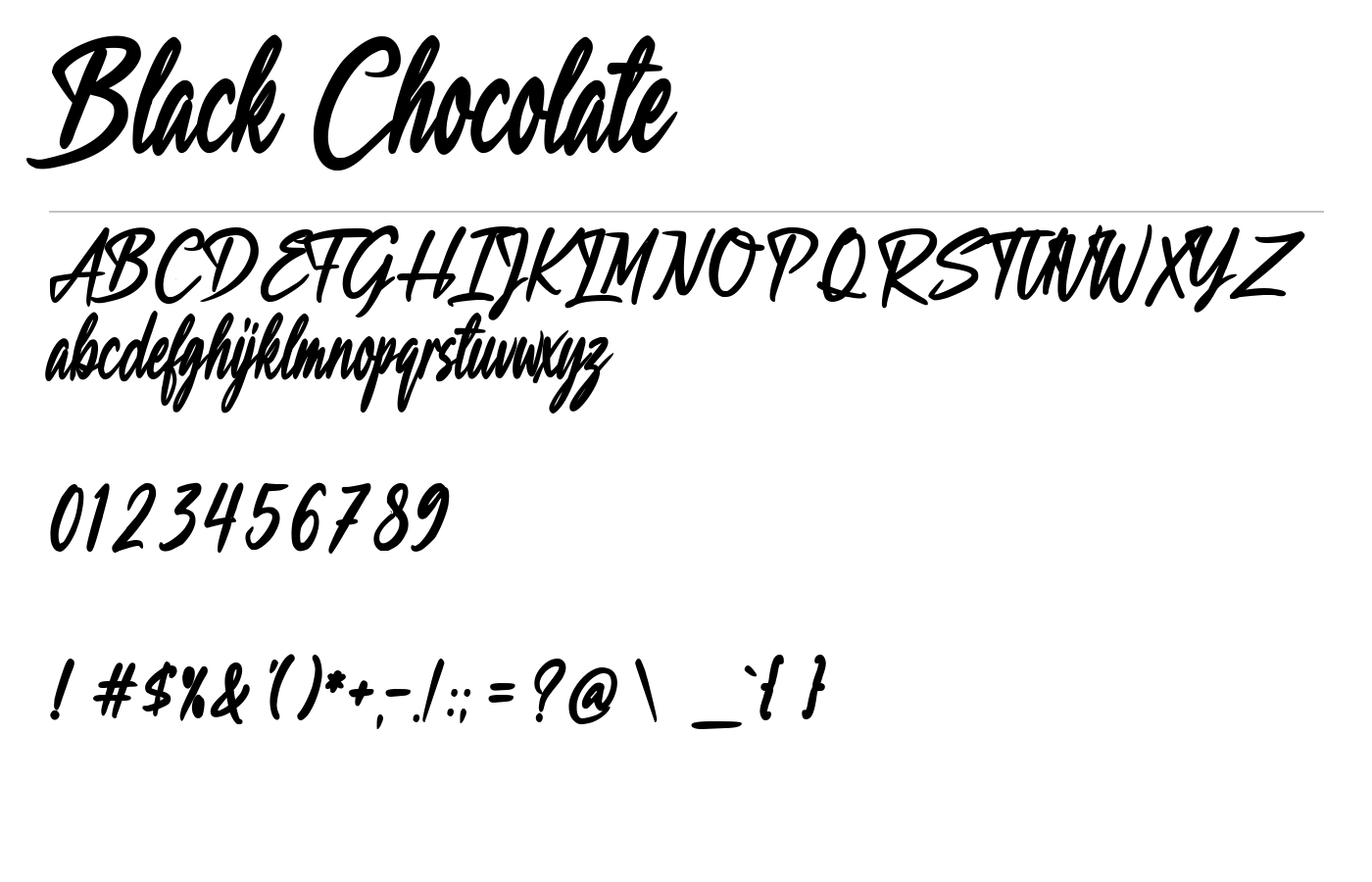
Black Chocolate is a lively and bold script font with a hand-drawn, brushstroke style that feels energetic and personal. Its slightly condensed, high-contrast strokes and dynamic letterforms make it perfect for creating eye-catching headlines, logos, and branding that want to convey creativity, warmth, and a casual yet stylish vibe. This font works well where a modern yet approachable touch is needed, such as in food packaging, social media graphics, or trendy editorial designs.
Black Chocolate Font
About Black Chocolate Font